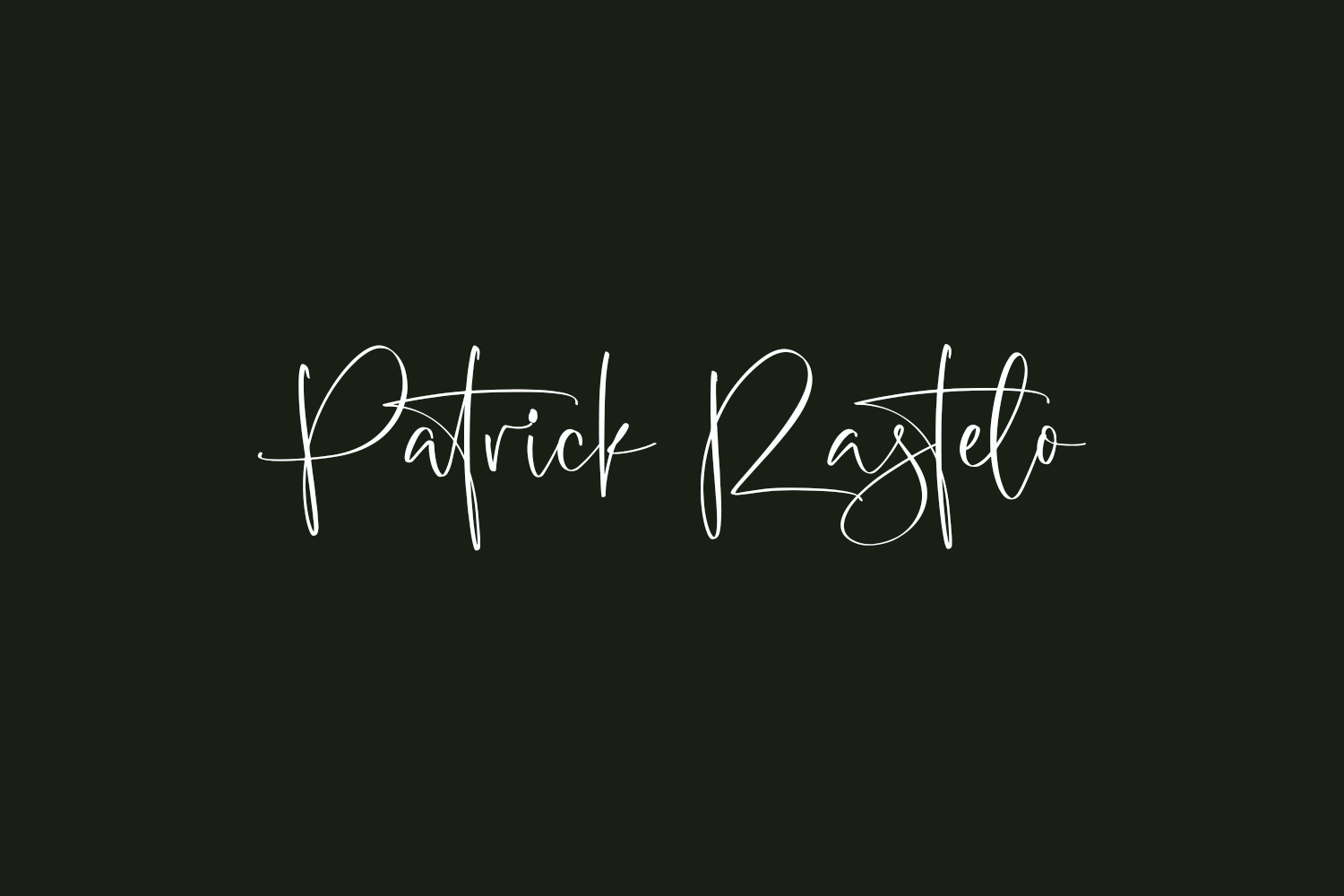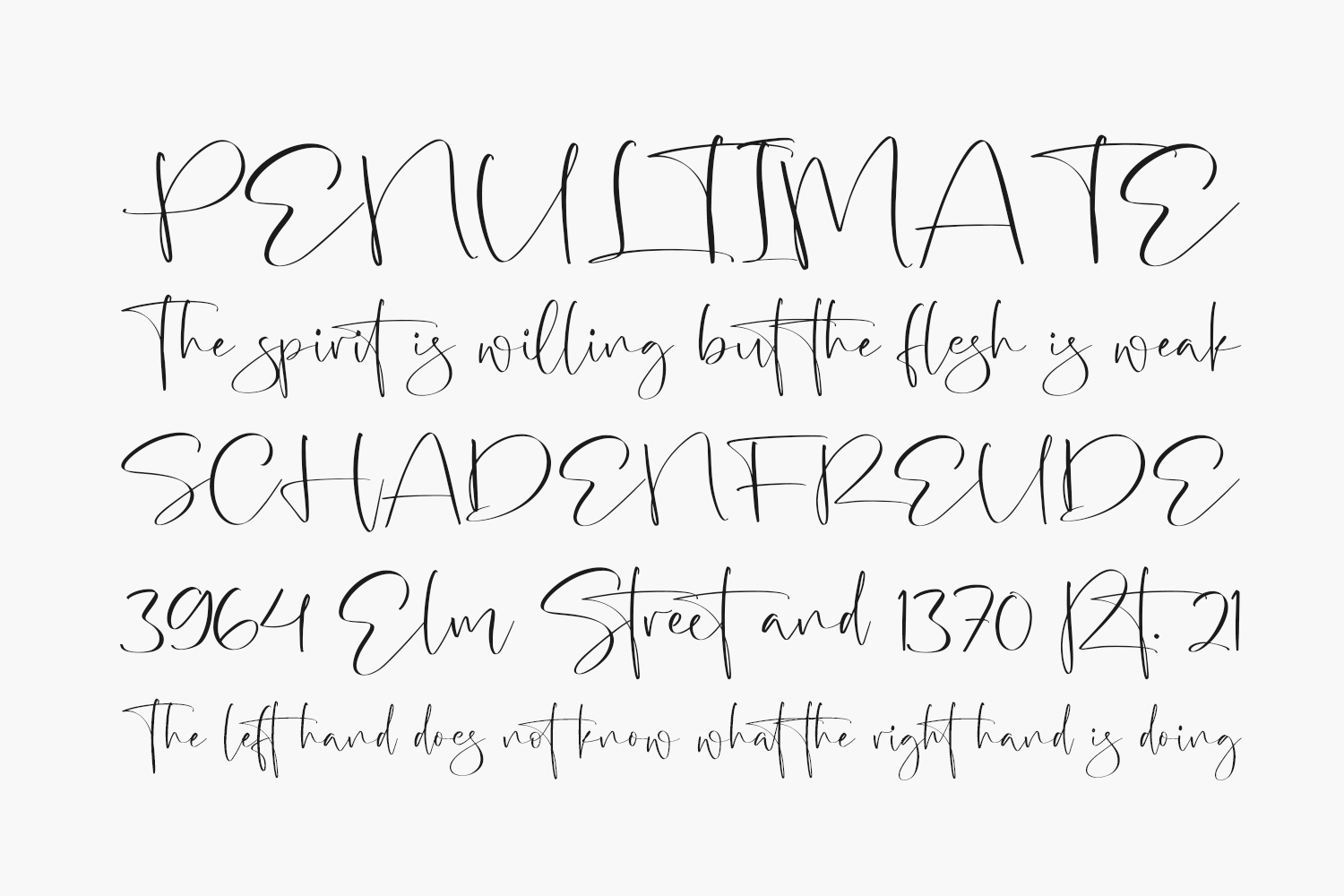
Discover the Patrick Rastelo Free Font – a delicate and gracefully scripted typeface. Immerse yourself in its captivating style and employ it to craft stunning and alluring designs. Patrick Rastelo Free Font is free for personal use only. Please purchase the full version for commercial use.
Designed by Letterena Studios